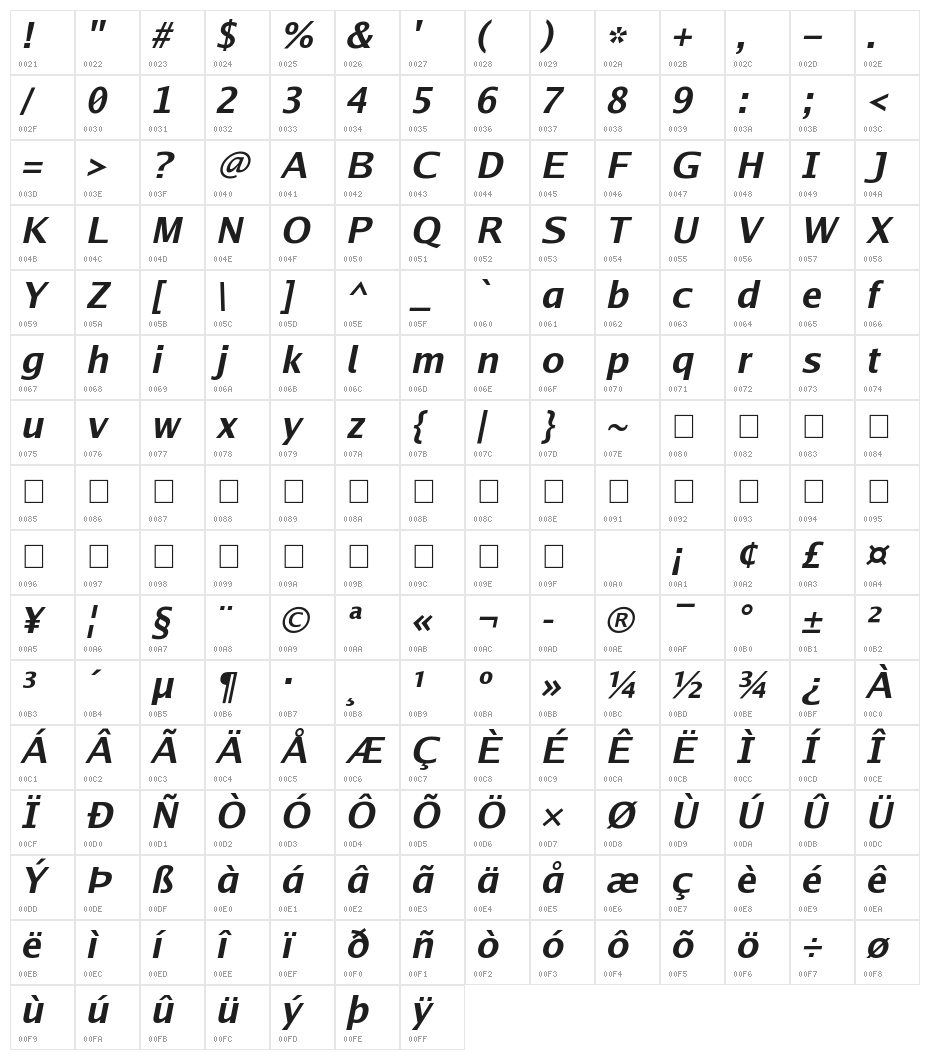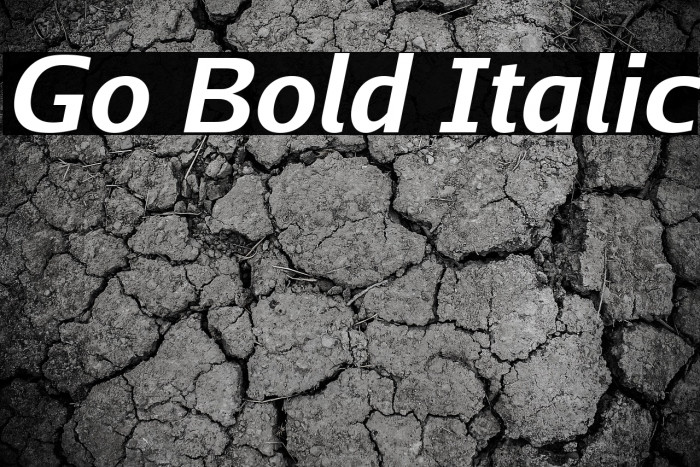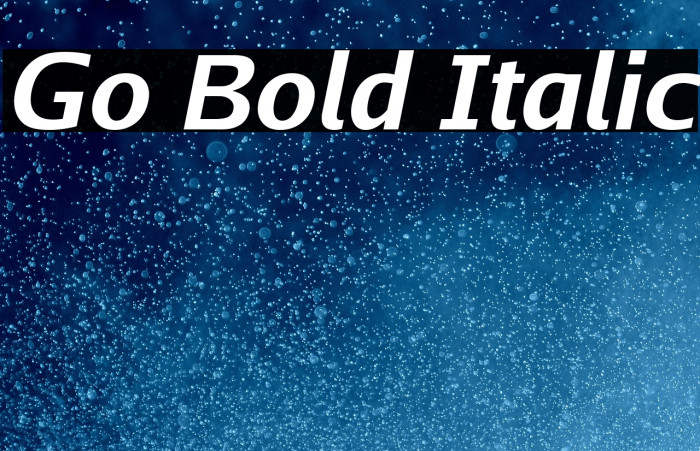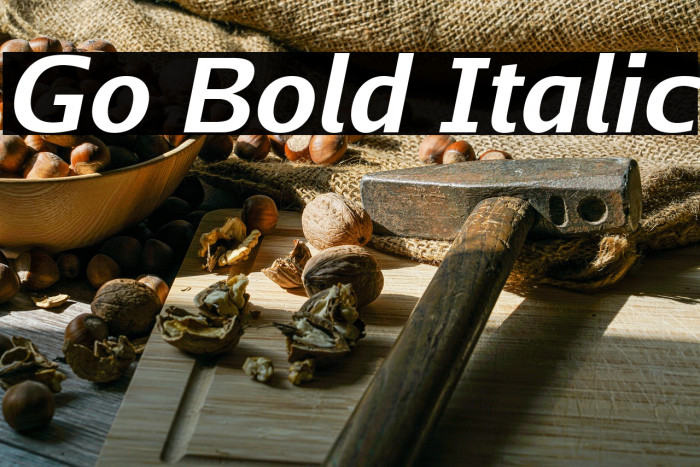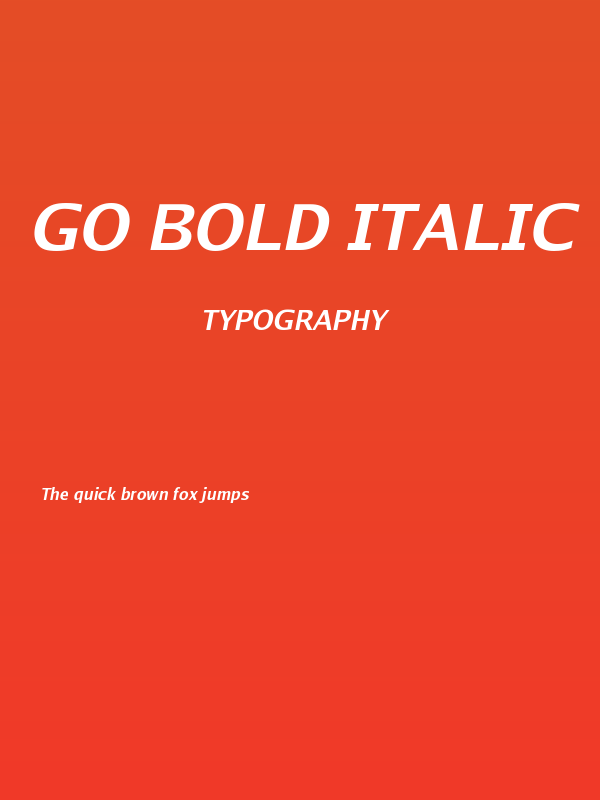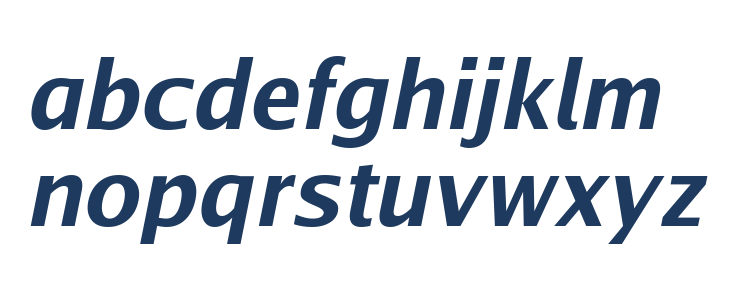
Go Bold Italic Font
Go Bold Italic Description
This font features a bold and italicized style, offering a dynamic and assertive appearance. The letters are slightly slanted, adding a sense of motion and emphasis. The strokes are thick and consistent, providing a strong visual impact. The characters are well-defined with smooth curves and sharp edges, making them highly legible. The numbers and special characters maintain the same bold and italicized characteristics, ensuring uniformity across all elements. This font is suitable for projects that require a strong and modern aesthetic.
| Proposed Projects | Ideal for headlines, posters, branding materials, and any design requiring emphasis and modernity. |